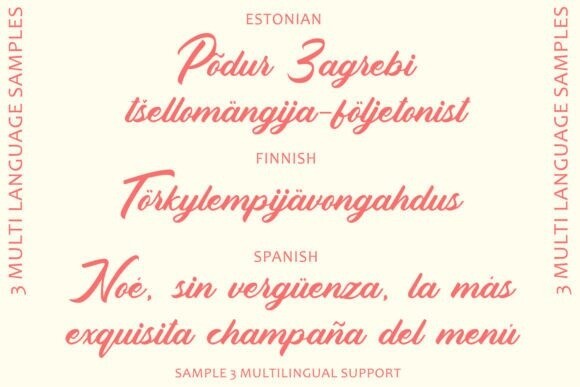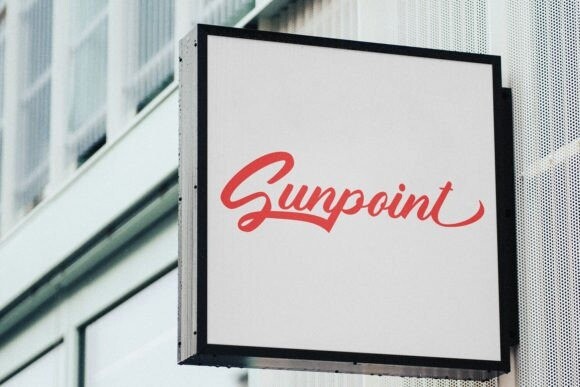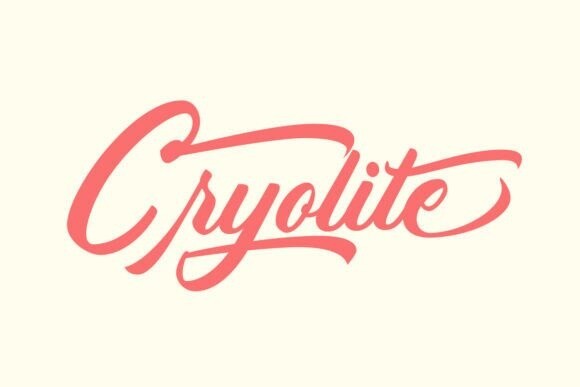
Cryolite Font
Designer: Arendxstudio
Cryolite Font is a dynamic and expressive typeface that captures the essence of hand-painted brush strokes, making it a versatile choice for a wide range of design projects. Cryolite replicates the fluid and spontaneous strokes of a brush, giving it a lively and organic appearance. The font’s brush script style adds a sense of energy and movement to typography, making it ideal for designs that require a dynamic and expressive touch.